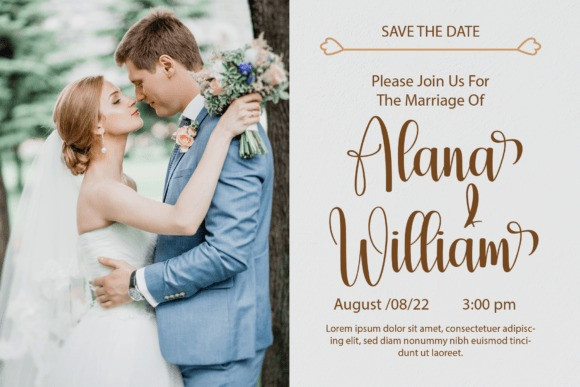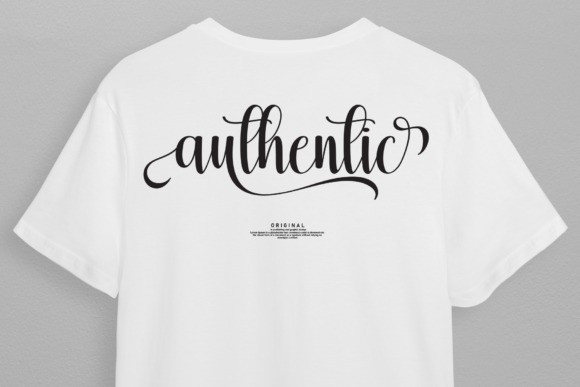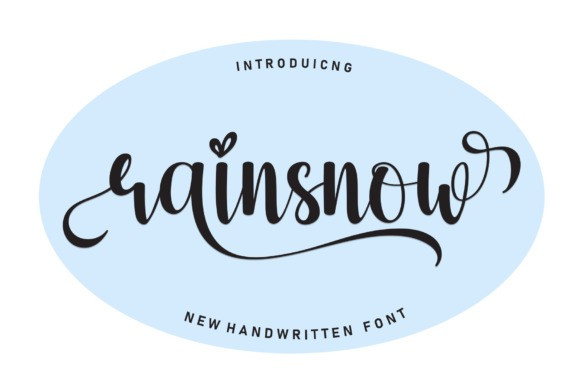
Rainsnow Script Font
Rainsnow Script Font is a stylish and incredibly elegant script font. It looks stunning on wedding invitations, thank you cards, quotes, greeting cards, logos, business cards and every other design which needs a handwritten touch.